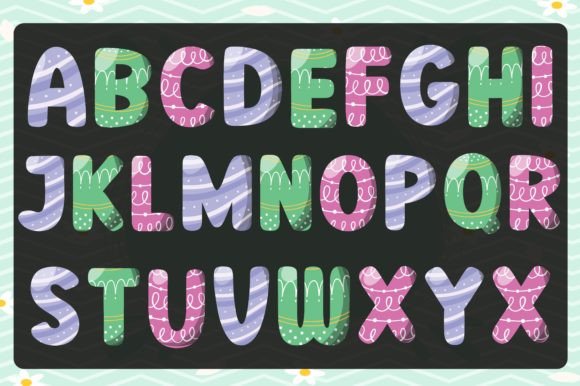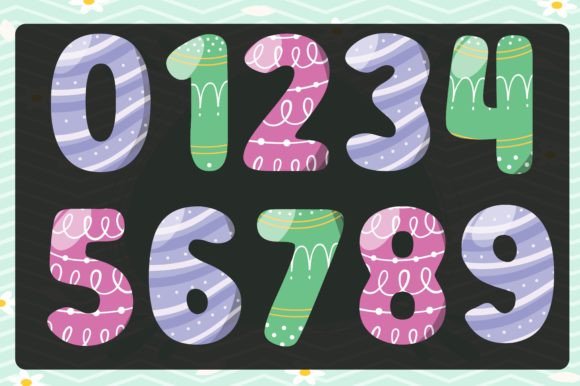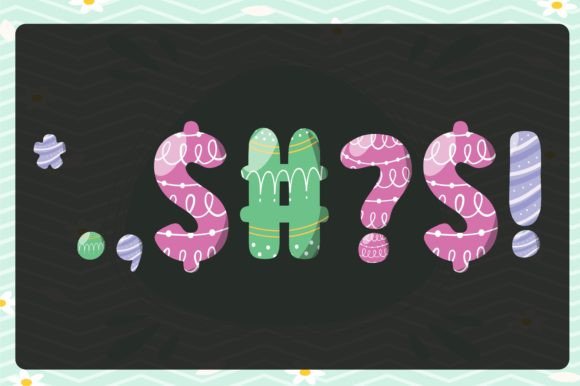
Easter Day Font: Adding a Touch of Whimsy to Your Designs
Easter Day is a sweet, chic, and bubbly color font that is sure to bring a smile to anyone who sees it. With its bright and bold colors, this font is perfect for designers and crafters looking to add a touch of whimsy to their projects. In this article, we’ll take a closer look at the Easter Day font, its features, and how you can use it to create stunning designs.
What is Easter Day Font?
Easter Day font is a type of color font that features bright and bold colors, making it perfect for Easter-themed designs, spring-inspired projects, and any other creative endeavor that requires a playful touch. This font is designed to be eye-catching and fun, with a unique and bubbly style that sets it apart from more traditional fonts.
Key Features of Easter Day Font
- Bright and Bold Colors: Easter Day font features a range of bright and bold colors that are sure to catch the eye.
- Sweet and Chic Design: The font has a sweet and chic design that makes it perfect for a variety of creative projects.
- Bubbly Style: The font’s bubbly style adds a playful touch to any design.
- Easter-themed: The font is perfect for Easter-themed designs, but can also be used for spring-inspired projects and other creative endeavors.
How to Use Easter Day Font in Your Designs
Easter Day font is a versatile font that can be used in a variety of creative projects, including:
- Easter-themed Designs: Use the font to create Easter-themed designs, such as Easter egg designs, bunny-themed projects, and spring-inspired artwork.
- Spring-inspired Projects: The font’s bright and bold colors make it perfect for spring-inspired projects, such as garden-themed designs and floral patterns.
- Crafting Projects: Easter Day font is perfect for crafters who want to add a personal touch to their projects, such as handmade cards, gift tags, and scrapbooking pages.
- Digital Designs: The font can also be used in digital designs, such as social media graphics, blog posts, and website headers.
Tips for Using Easter Day Font
- Experiment with Colors: Easter Day font features a range of bright and bold colors, so don’t be afraid to experiment and find the perfect color combination for your design.
- Mix and Match: Mix and match the font with other fonts and design elements to create a unique and eye-catching design.
- Keep it Simple: Don’t overcomplicate your design – keep it simple and let the font do the talking.
- Have Fun: Most importantly, have fun and be creative with the font!
Easter Day font is a sweet, chic, and bubbly color font that is sure to bring a smile to anyone who sees it. With its bright and bold colors, this font is perfect for designers and crafters looking to add a touch of whimsy to their projects. Whether you’re creating Easter-themed designs, spring-inspired projects, or just want to add a playful touch to your designs, Easter Day font is a great choice. So why not give it a try and see what amazing designs you can create?